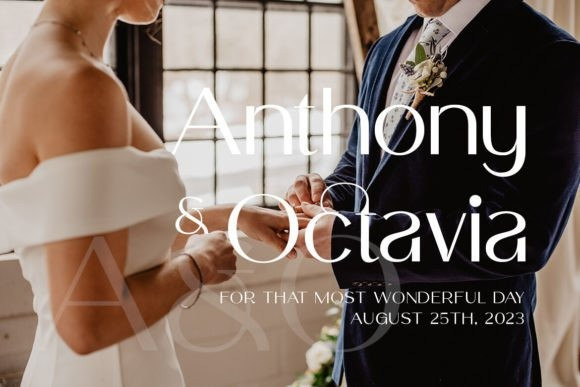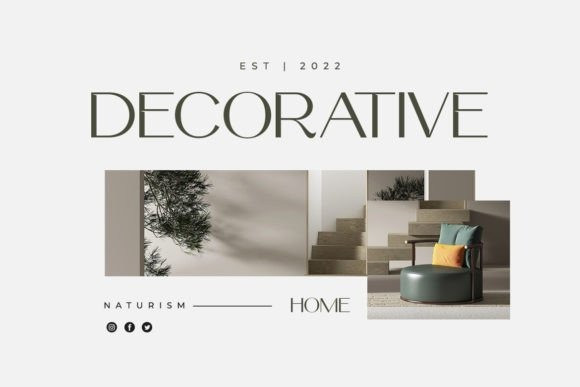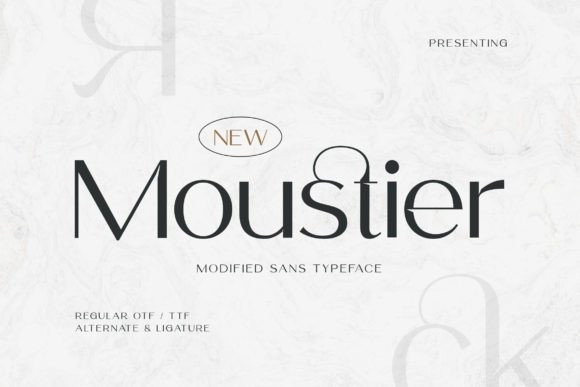
Moustier Font
Moustier Font – a modified sans typeface that strikes the perfect balance between modernity and versatility. With its clean and sleek letterforms, “Moustier” offers a contemporary twist to the classic sans-serif style. Each character is thoughtfully modified to add a touch of uniqueness and character, making it suitable for a wide range of design projects, from branding and packaging to editorial layouts and web designs.
Embrace the versatility of “Moustier Font ” as it seamlessly adapts to any visual context. Whether you’re creating minimalist logos, clean headlines, elegant posters, or user-friendly interfaces, this typeface will elevate your designs with its modified and distinctive aesthetic.